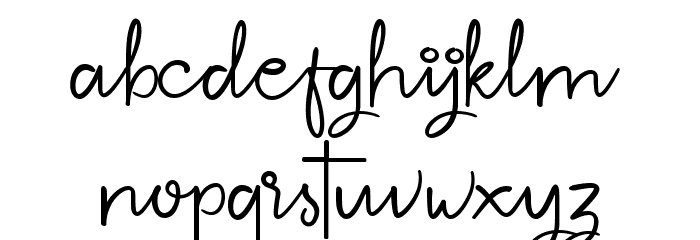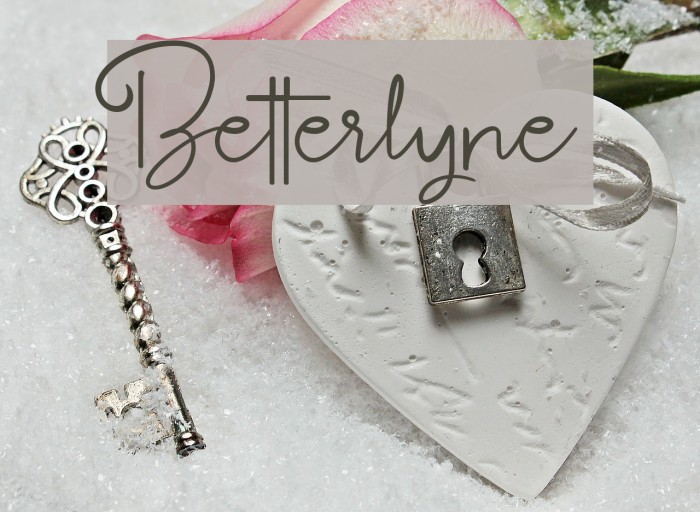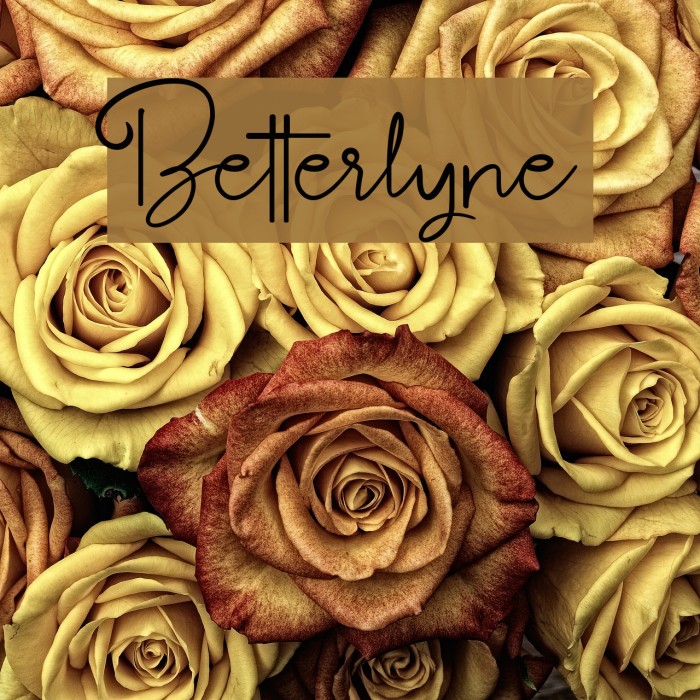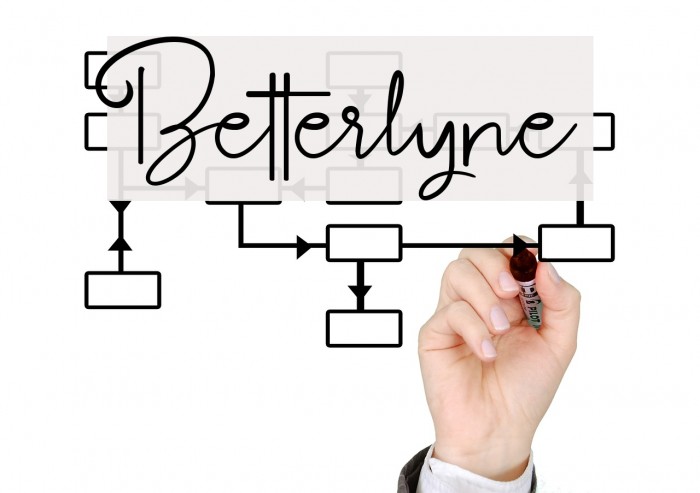
Betterlyne Font
This font features a whimsical and elegant script style with a playful yet sophisticated flair. The uppercase letters are characterized by their flowing, interconnected lines that create a sense of movement and grace. The lowercase letters maintain a consistent style, with smooth curves and loops that add to the font's charm. The overall design is both decorative and legible, making it suitable for a variety of creative applications. The font's unique style is enhanced by its consistent stroke width, which provides a balanced and harmonious appearance.
A whimsical and elegant script font with flowing, interconnected lines.
- Proposed Projects: Ideal for wedding invitations, greeting cards, branding, and decorative projects.
- Category: Script
- Use Case: Logos, Invitations, Decorative text